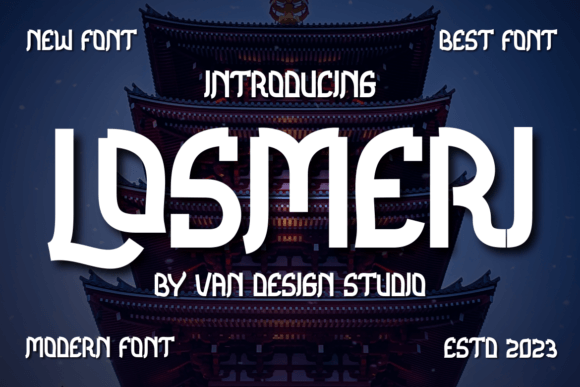
Embark on a typographic odyssey with Losmeri Font, the sans serif masterpiece crafted by vandesignstd. This font is not just a collection of letters; it's an artistic expression, a visual symphony that will elevate your designs to unprecedented heights.
Losmeri's meticulously crafted curves and elegant lines exude an air of sophistication and charm. Its distinct personality shines through in every word, captivating your audience and leaving a lasting impression. Whether you're crafting logos, branding materials, website designs, or social media graphics, Losmeri will add a touch of magic to your creations.
With its remarkable versatility, Losmeri effortlessly adapts to a myriad of design styles. From classic and timeless to modern and edgy, this font seamlessly blends with your vision, becoming an integral part of your creative expression. Its versatility extends beyond aesthetics, as it performs flawlessly across various platforms and applications, ensuring your designs shine everywhere they appear.
Losmeri is more than just a font; it's an investment in your brand's identity. Its beauty and functionality will captivate your audience, leaving them with a lasting impression of your brand's professionalism and attention to detail. Whether you're a seasoned designer or just starting, Losmeri will empower you to create stunning visuals that leave a lasting impact.
So, let your creativity soar and embrace the transformative power of Losmeri Font. Unleash your imagination and watch as your designs blossom into masterpieces, captivating your audience and leaving them in awe. Experience the Losmeri difference today and embark on a journey of typographic excellence.